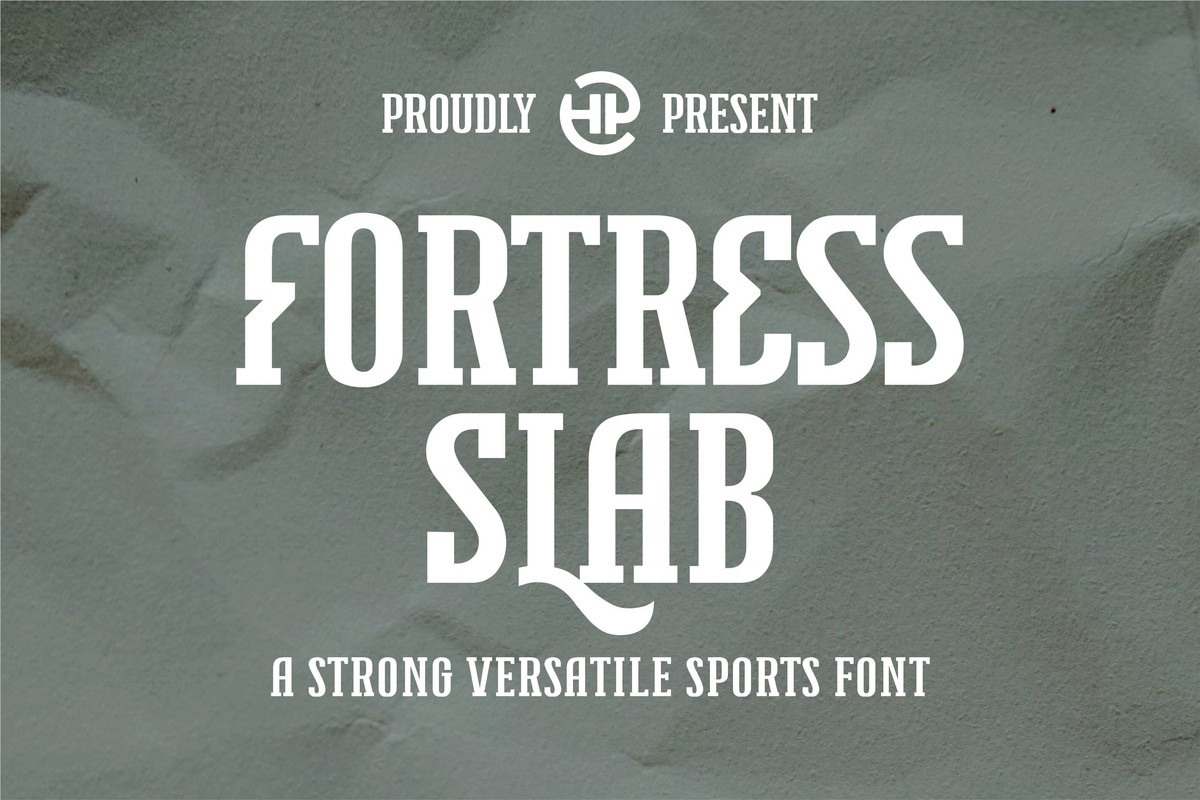
Fortress Slab Font
Fortress Slab Font excels in cybersecurity company branding, defense contractor communications, military academy materials, fortress construction projects, security system interfaces, tactical equipment packaging, defense industry presentations, stronghold tourism marketing, castle restoration projects, and fortified architecture displays. This powerful typeface brings defensive strength and impenetrable security to any protection-focused design project.
Fortress Slab Font is exciting because it embodies the unbreakable strength and defensive resilience of fortified structures, featuring robust slab serif letterforms that convey the same impenetrable security and unwavering protection that defines military fortifications and cybersecurity systems. Its fortress character instantly establishes defensive credibility, security expertise, and the ironclad reliability required for protecting valuable assets and maintaining strategic advantages.
Fortress Slab Font family includes Light, Regular, Medium, Bold, and Black weights with defensive alternates, fortress-inspired flourishes, security ornamental elements, and protection symbols that enhance the stronghold aesthetic, providing security designers with powerful tools for creating typography that communicates defensive excellence and fortress-level protection with commanding authority.
Defense industry designers appreciate Fortress Slab Font for its exceptional ability to convey defensive strength and security reliability through powerfully crafted letterforms. The font's fortress character and security details create immediate associations with impenetrable defenses, strategic protection, and the sophisticated security measures that safeguard critical infrastructure and defend against emerging threats in both physical and digital domains.
The design philosophy behind Fortress Slab Font celebrates the fundamental importance of defensive security and the strategic thinking required to protect valuable assets through comprehensive security measures and defensive planning, making it particularly effective for cybersecurity companies, defense organizations, and security service providers that maintain fortress-level protection. Security teams working on defense projects find this font essential.
Whether used for cybersecurity platforms, defense industry communications, or fortress-level security services, Fortress Slab Font delivers the perfect combination of defensive strength and security authenticity. Its protective appeal and fortress reliability make it an indispensable choice for organizations that provide impenetrable security, defend against threats, and maintain the fortress-level protection that safeguards critical assets and strategic advantages.